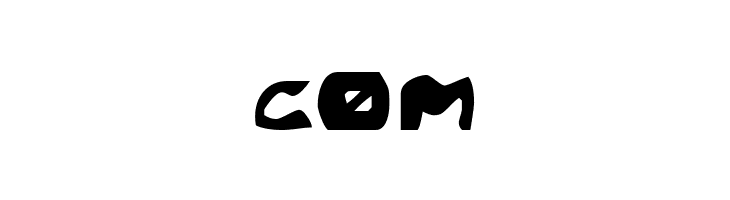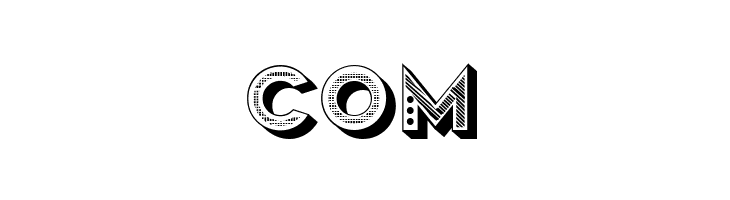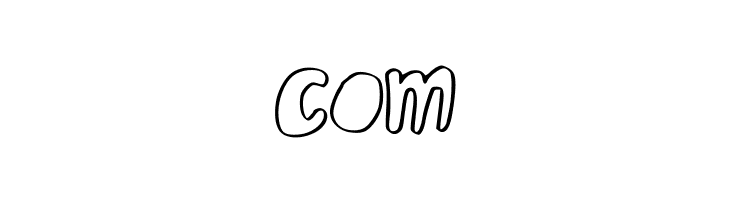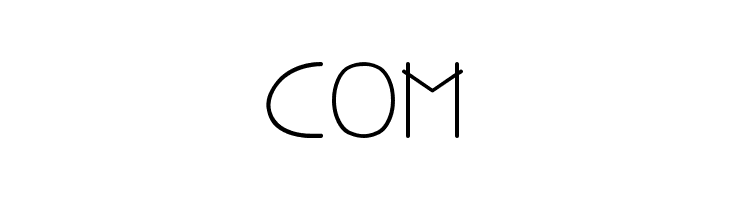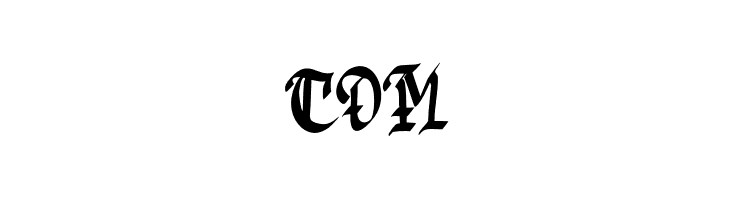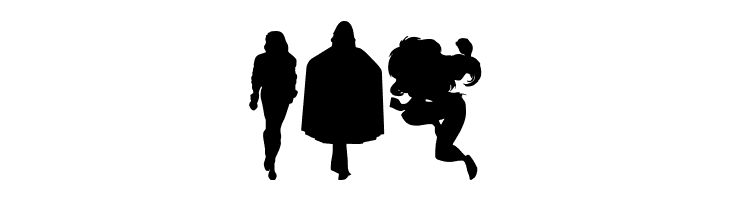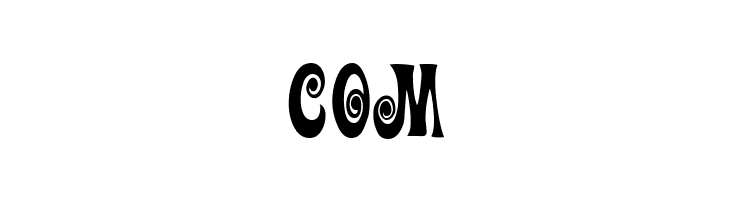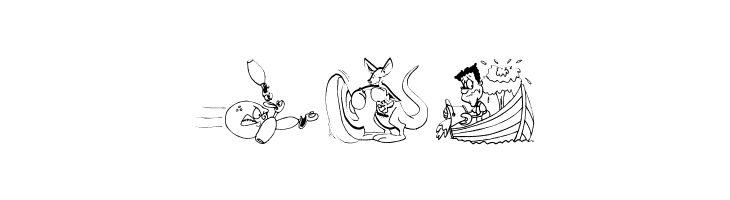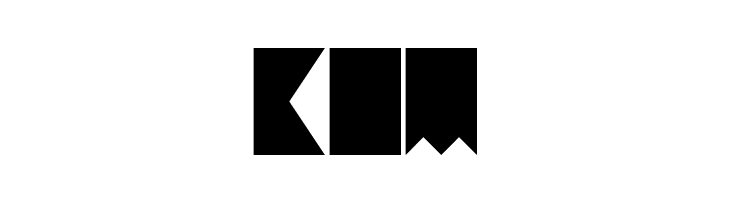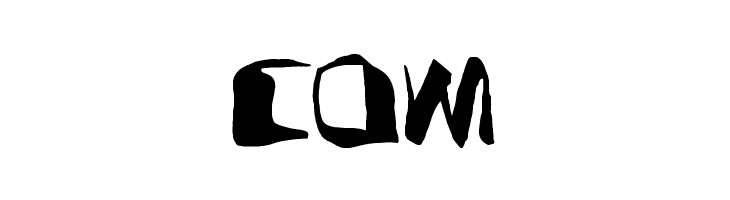
• Action Women
Silhouetted action poses of women, not a font.
• ActionIs
• Actions
Cartoon action-themed dingbat font with hand-drawn illustrations.
• Activate Oddtype
• ACTlove
• Actonia Hand PERSONAL USE
A cursive, handwritten-style font with elegant, flowing strokes.
• Actonia PERSONAL USE
A cursive, elegant font with smooth, interconnected letters and decorative flourishes.
• Actor Regular
A modern sans-serif font with clean lines and balanced proportions.
• Actrice Personal Use
A casual handwritten font with smooth, slanted characters.
• Actu
A bold, distressed font with a grunge texture and strong, blocky characters.
• Actually
A decorative and elegant script font with flowing, cursive letterforms and intricate details.
• Acude FREE
A bold, Gothic-style font with ornate, angular letterforms and dramatic flourishes.
• AcudeFREE
A bold, gothic-style blackletter font with intricate details.
• AcuentrePersonalUseOnly-Regular
An ornate and decorative font with intricate swirls and flourishes.
• Acusted FREE
A dynamic and fluid script font with elegant, flowing letterforms.
• AcustedFREE
A dynamic and fluid script font with elegant, flowing letterforms.
• acute solid
• ACWanita
A playful, handwritten font with smooth curves and a casual style.
• ACWanitaCounters